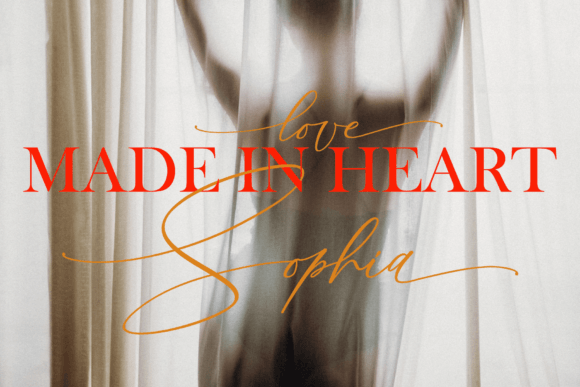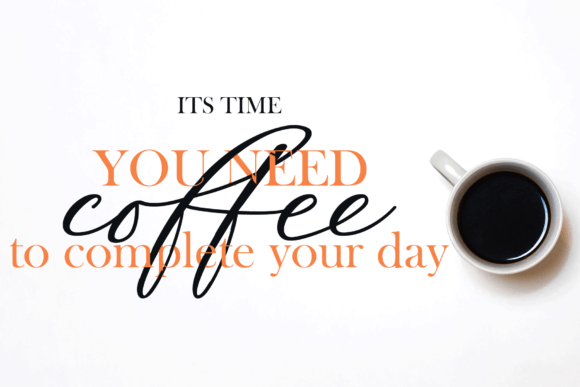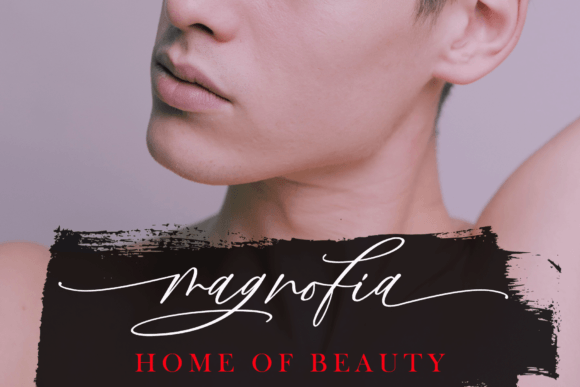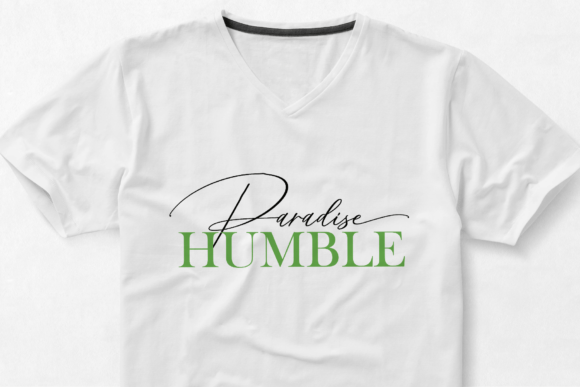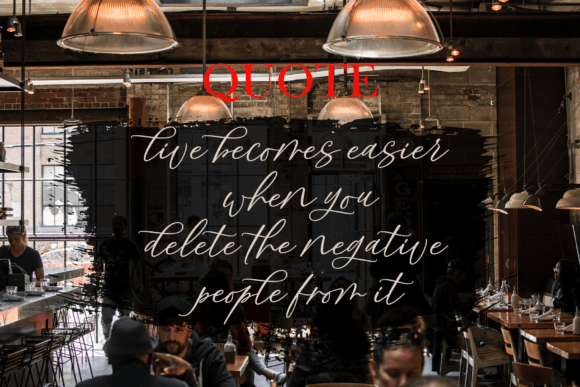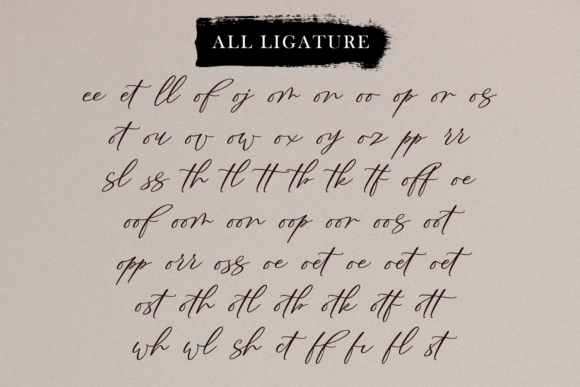
Introducing Harlonia Font: A Modern Calligraphy Marvel
Are you on the hunt for a font that exudes elegance, sophistication, and a touch of modern flair? Look no further than Harlonia Font, a stunning calligraphy font that is sure to elevate your design projects to new heights. In this article, we’ll dive into the world of Harlonia Font, exploring its features, benefits, and uses, making it a must-have for designers and crafters alike.
What is Harlonia Font?
Harlonia Script is a modern calligraphy font that boasts a unique and captivating charm. Its characters seem to dance along the baseline, imbuing any design with a sense of movement and fluidity. The font’s elegant touch makes it perfect for a wide range of applications, from luxurious branding to beautiful wedding invitations.
Key Features of Harlonia Font
- 375 Glyphs: Harlonia Font comes with an impressive 375 glyphs, offering a vast range of characters to work with. This extensive library allows you to experiment with different combinations, creating unique and eye-catching designs.
- Opentype Features: This font features Opentype capabilities, including stylistic alternates, ligatures, and multiple language support. These features give you the flexibility to customize your text, making it truly one-of-a-kind.
- PUA Encoding: Harlonia Font is PUA (Private Use Area) encoded, making it incredibly easy to access all the amazing glyphs and ligatures. This means you can effortlessly incorporate the font’s beautiful swashes and ornaments into your designs.
Uses of Harlonia Font
Harlonia Font’s versatility makes it suitable for a wide range of design projects. Here are some ideas to get you started:
- Logos: Create a lasting impression with a custom logo that showcases your brand’s personality and style.
- Wedding Invitations: Add a touch of romance and sophistication to your wedding invitations, making them truly unforgettable.
- Letterhead: Elevate your business correspondence with a professional and elegant letterhead.
- Signage: Make a statement with eye-catching signage that showcases your brand’s message.
- T-Shirts: Design stunning apparel with Harlonia Font, perfect for fashion brands, events, or promotions.
- Headings and Labels: Add a touch of elegance to your headings, labels, and posters, making them stand out from the crowd.
- Badges: Create beautiful badges that feature your brand’s name or logo, perfect for conferences, events, or employee recognition.
Benefits of Using Harlonia Font
So, why choose Harlonia Font for your design projects? Here are just a few benefits:
- Elegance and Sophistication: Harlonia Font adds a touch of luxury and refinement to any design, making it perfect for high-end brands and projects.
- Flexibility: With its extensive glyph library and Opentype features, Harlonia Font offers endless possibilities for customization and creativity.
- Readability: Despite its elegant and cursive nature, Harlonia Font remains highly readable, making it suitable for body text and headlines.
In conclusion, Harlonia Font is a modern calligraphy marvel that is sure to captivate designers and crafters alike. Its elegant touch, extensive glyph library, and Opentype features make it a versatile and powerful tool for a wide range of design projects. Whether you’re looking to create stunning logos, beautiful wedding invitations, or eye-catching signage, Harlonia Font is the perfect choice. So why wait? Dive into the world of Harlonia Font today and discover a new level of design sophistication.